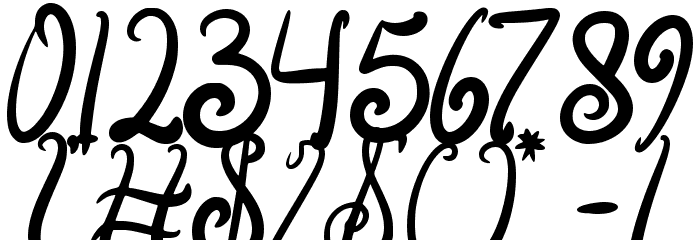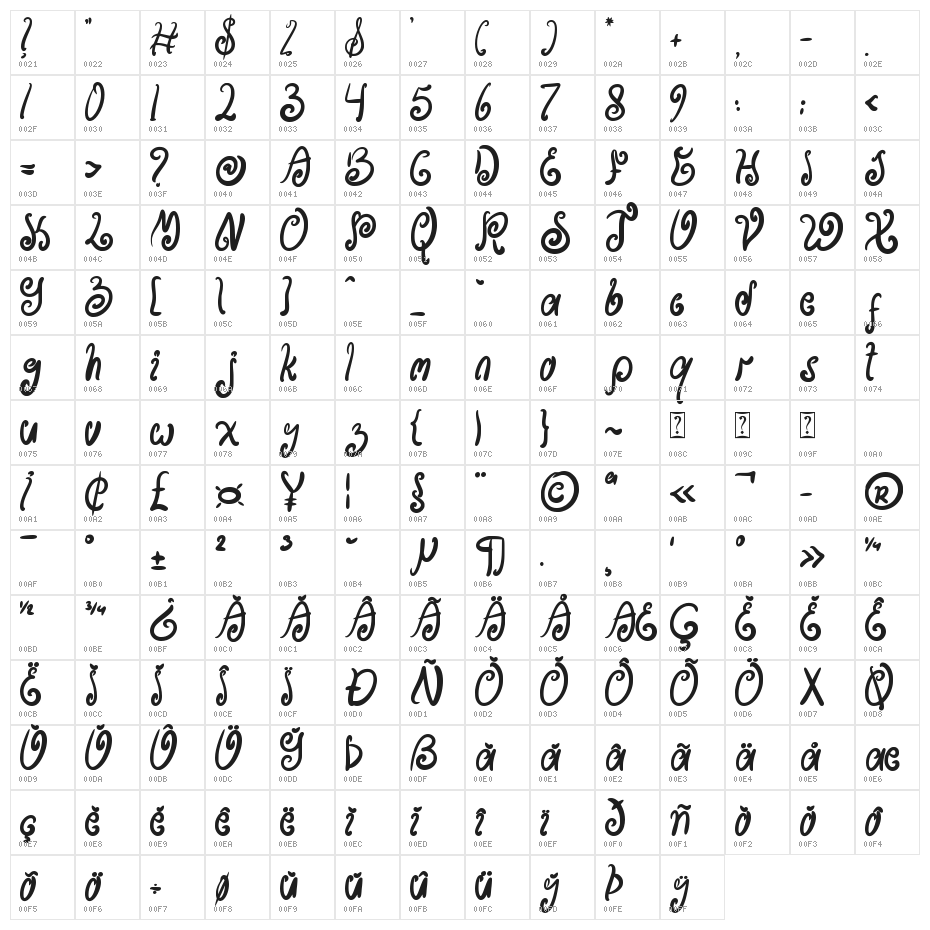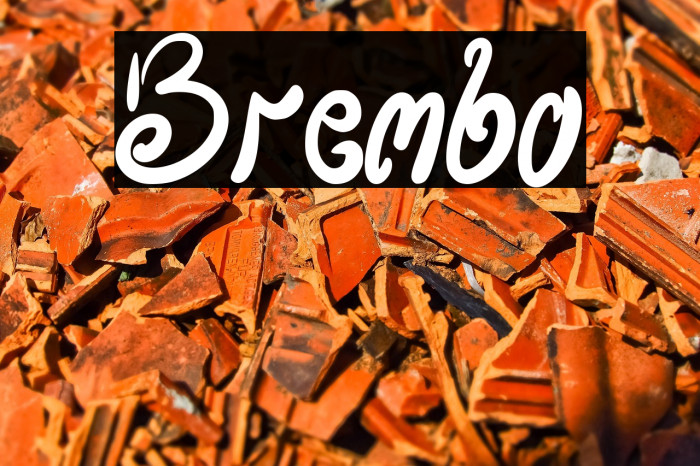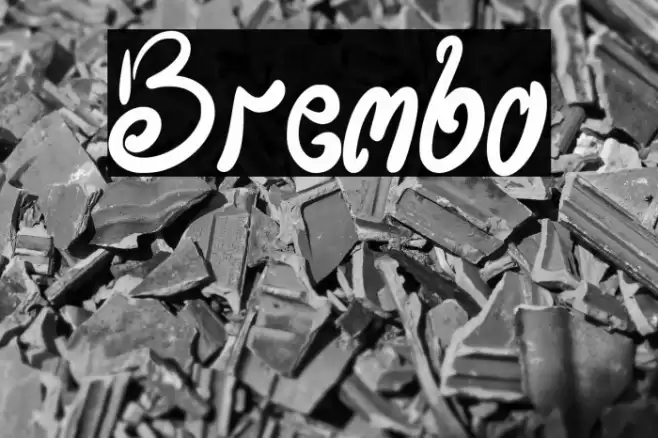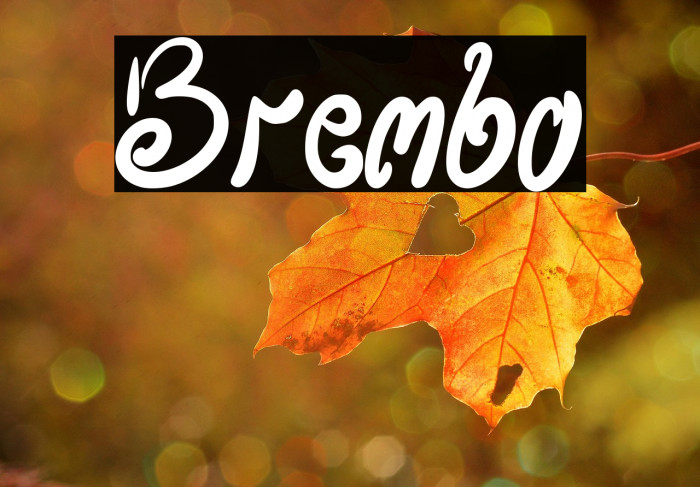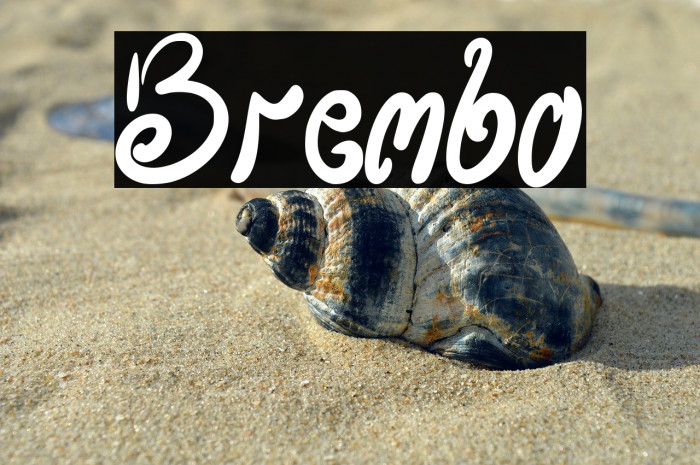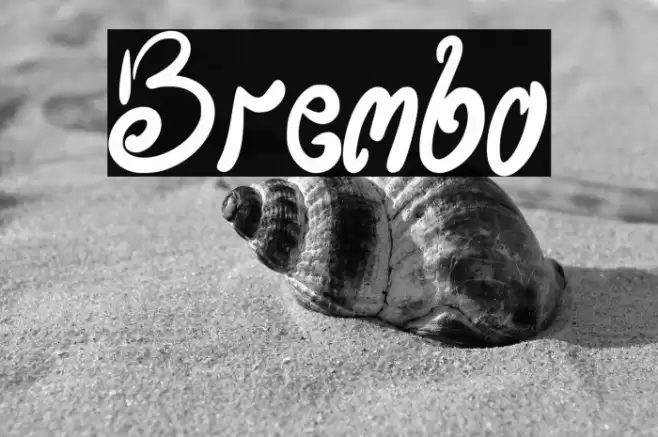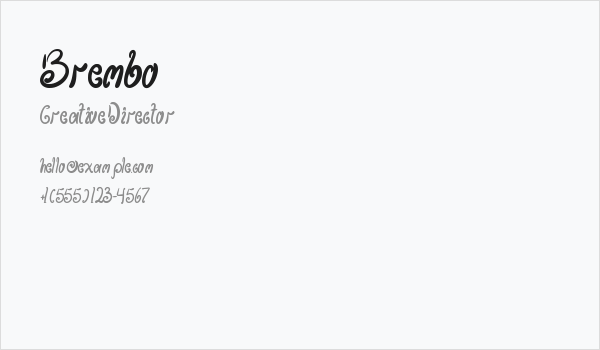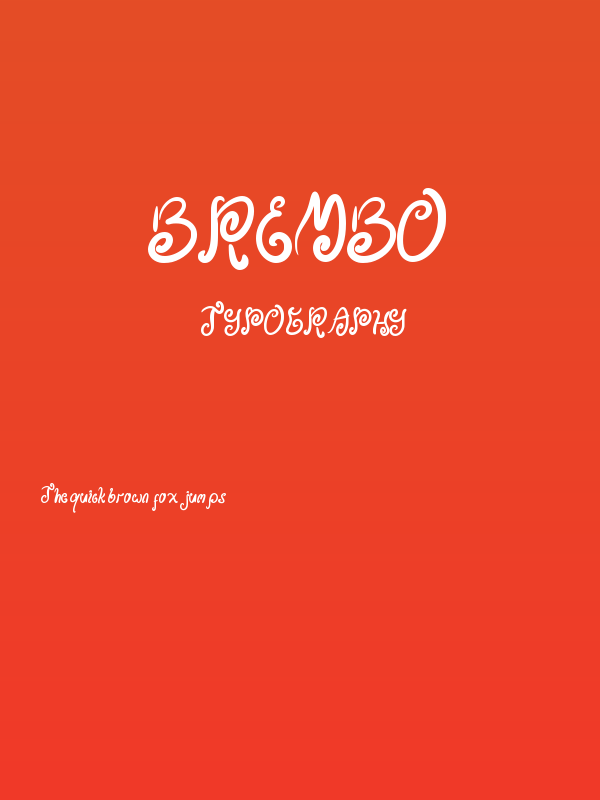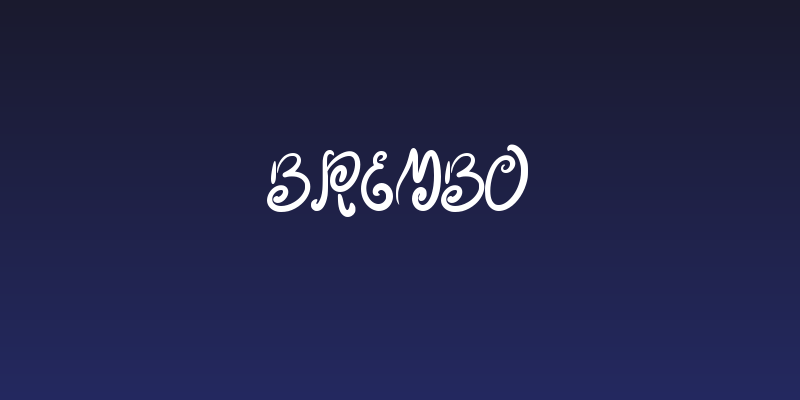
Brembo Font
Brembo Description
This font features a highly decorative and whimsical style, characterized by its playful curls and loops. Each letter and number is uniquely designed with intricate swirls, giving it a lively and artistic appearance. The uppercase letters are bold and expressive, while the lowercase letters maintain the same decorative flair. The numbers and special characters follow suit with elaborate designs, making them stand out. This font is perfect for creative projects that require a touch of elegance and fun. Its unique style makes it ideal for eye-catching headlines or artistic logos.
| Use Case | Headlines, Logos, Artistic projects |
| Proposed Projects | Ideal for creative projects such as invitations, artistic logos, and eye-catching headlines. |